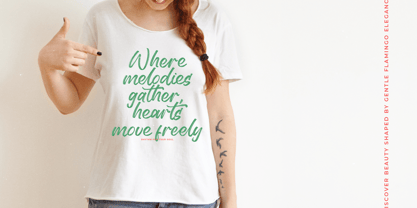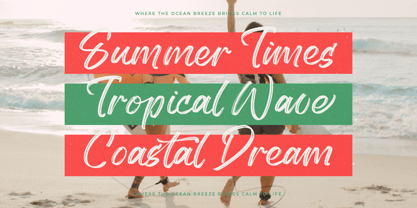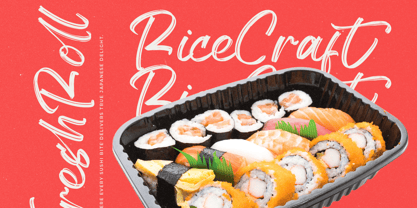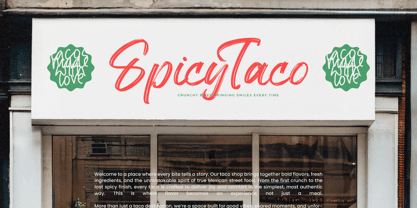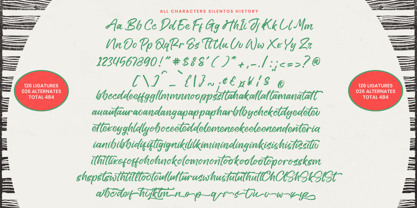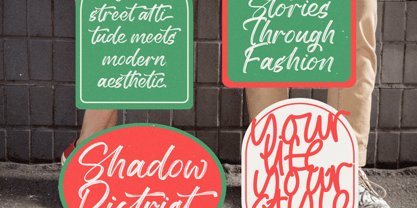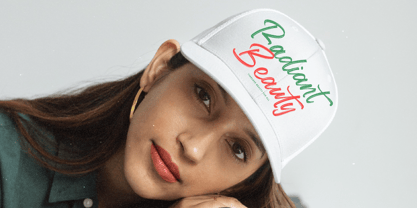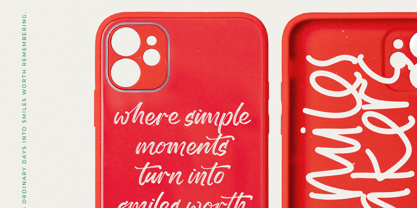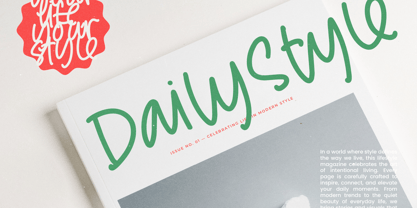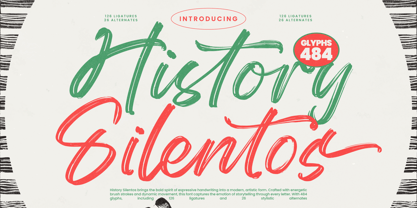
History Silentos
The History Silentos Font Family was designed by Heru Utama Putra and published by Stylishtype Studio. History Silentos contains 2 styles and family package options. More about this family
History Silentos is an expressive handwritten brush font designed with bold energy, dynamic movement, and a raw artistic spirit. Every stroke feels alive, capturing the emotional flow of storytelling through sweeping curves and textured brush pressure. This typeface is perfect for projects that demand intensity, personality, and hand-crafted authenticity - such as poster designs, album covers, editorial graphics, street-art inspired branding, merchandise, social media titles, and creative advertising.